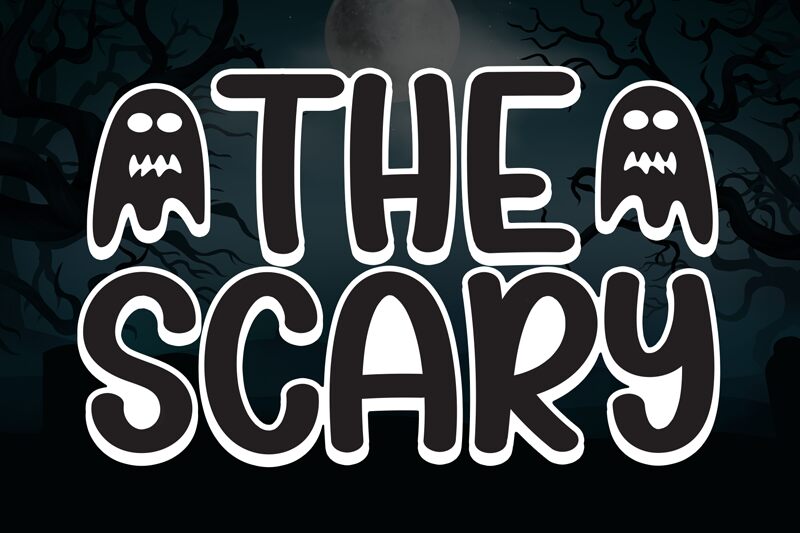
The Scary font by Andi Moz is a bubbly and fun display script font that never passes unnoticed. It is playful, whimsical, casual, informal, bright, cartoonish, lively, friendly, and inviting. The font’s name might be scary, but its letters are soft, friendly, and round. Jumpy overlaps in the hand-drawn letters are what makes this font a wonderful choice for comic books fans and readers.
The Scary font could be an ideal typeface for comic books, a cartoon series poster, horror movie branding and collections, video games, short stories, children’s books, and many other related projects. Considering it is a handwritten font, the font can also simply be used for crafting a beautiful personal gift card or birthday card.
This is a sweet and friendly handwritten display font. Cute and fun, this font is ideal for creating wedding invitations, cards, or any other design that might need a playful touch.